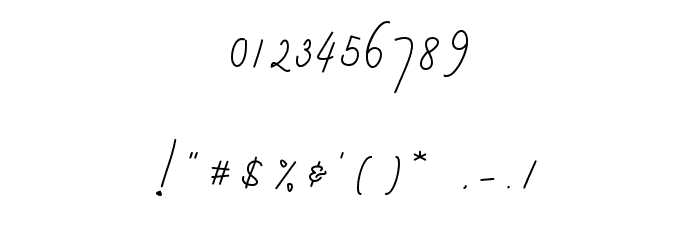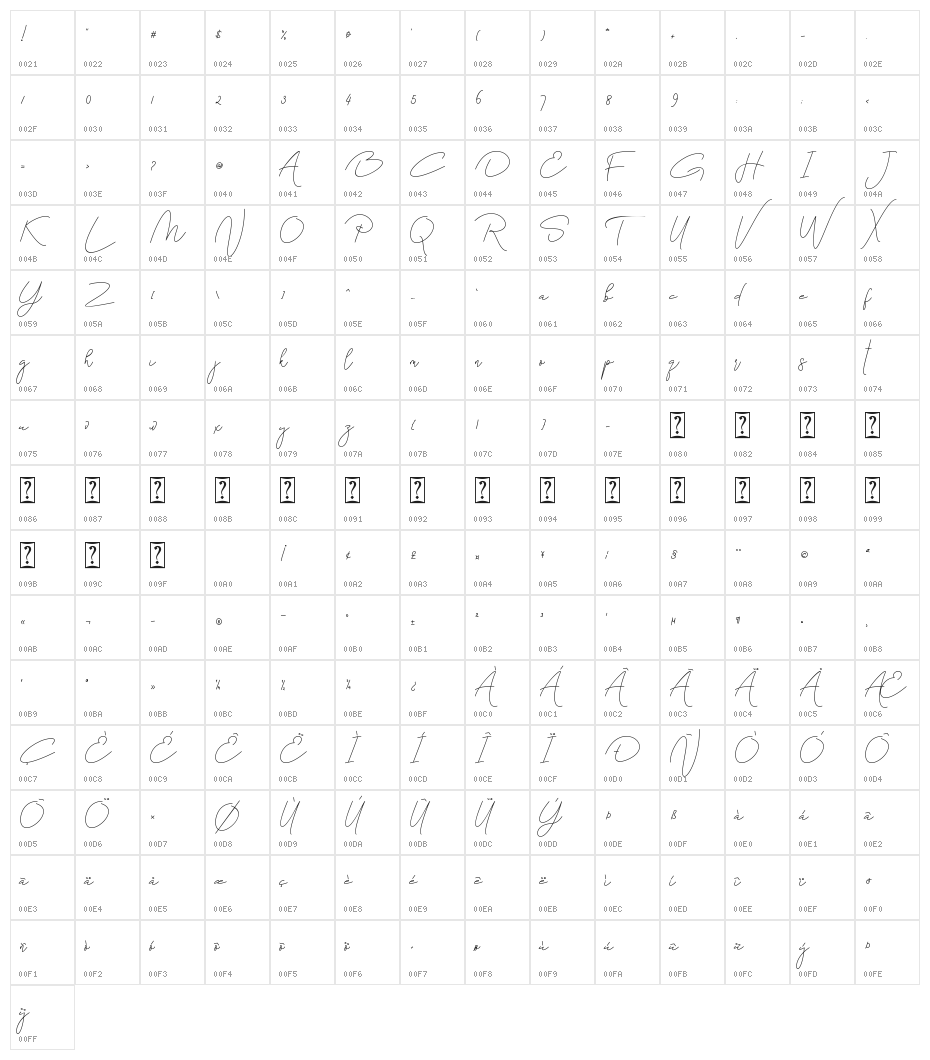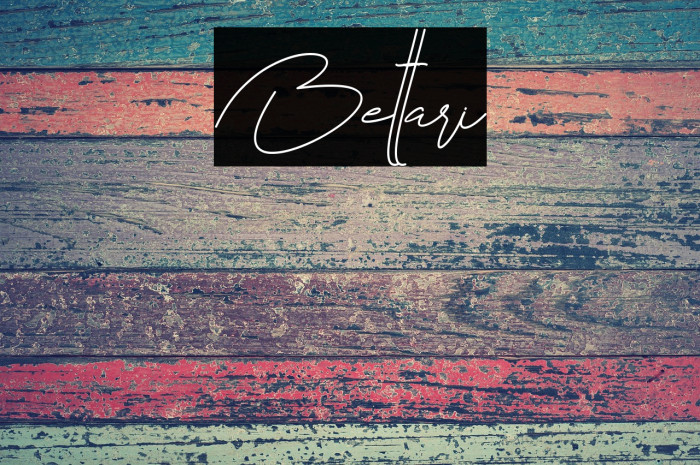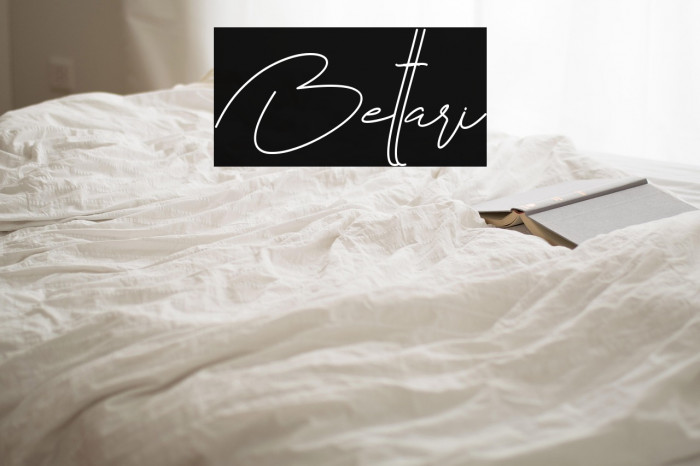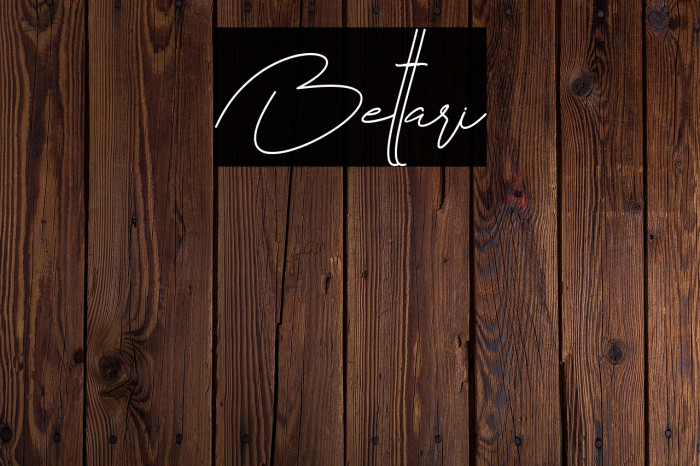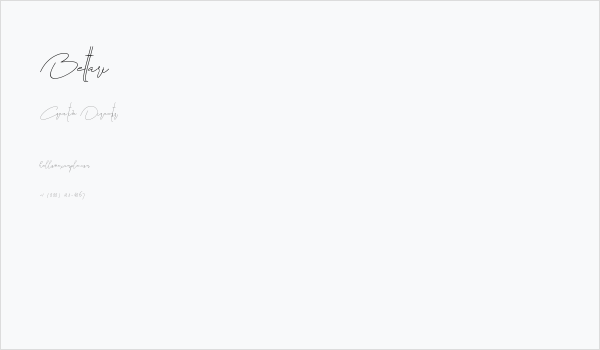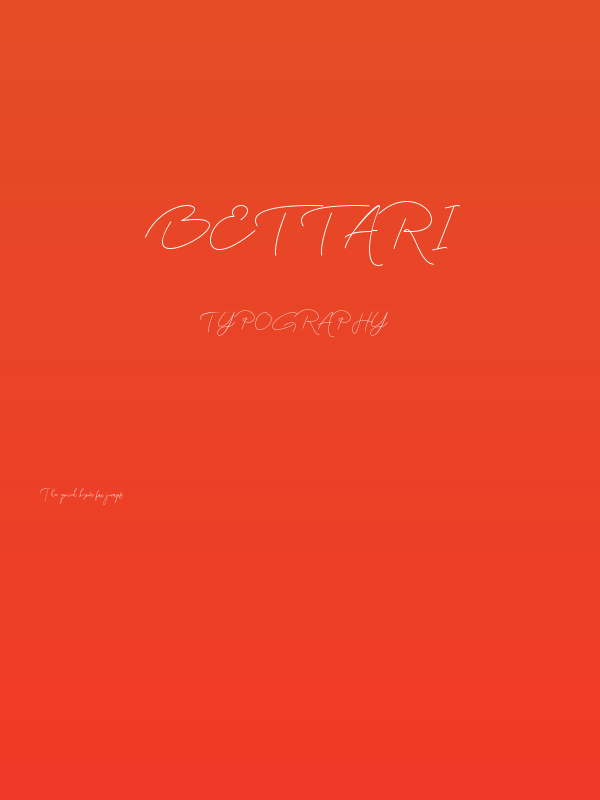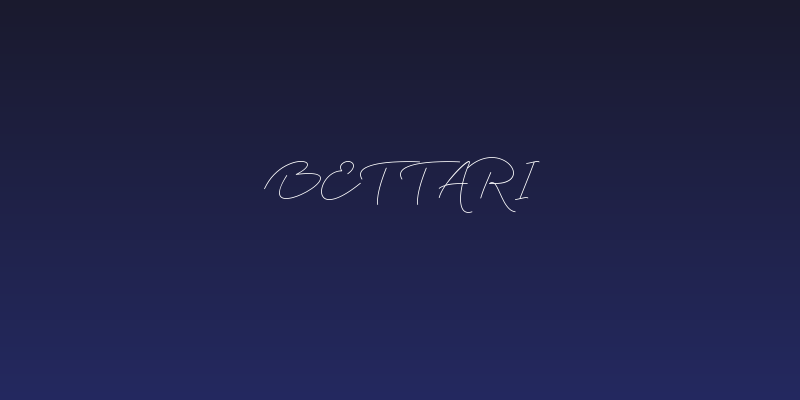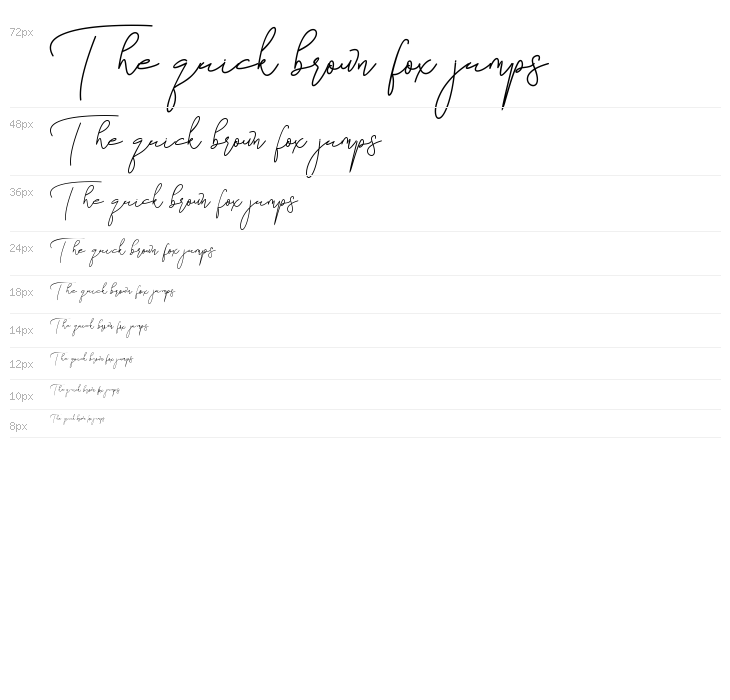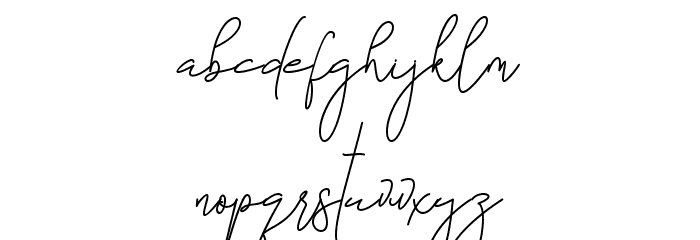
Bettari Font
Bettari Description
This font features an elegant and flowing script style, characterized by its delicate and continuous strokes that mimic the fluidity of handwriting. The uppercase letters are slightly more structured, maintaining a consistent height, while the lowercase letters exhibit a more playful and varied baseline, adding to the font's charm. The numerals and special characters are crafted with the same attention to detail, ensuring a cohesive look across all elements. The overall appearance is sophisticated and artistic, making it suitable for projects that require a personal touch.
| Overall Style | Elegant, Artistic |
| Proposed Projects | Ideal for wedding invitations, personal branding, greeting cards, and artistic projects that require a touch of elegance. |